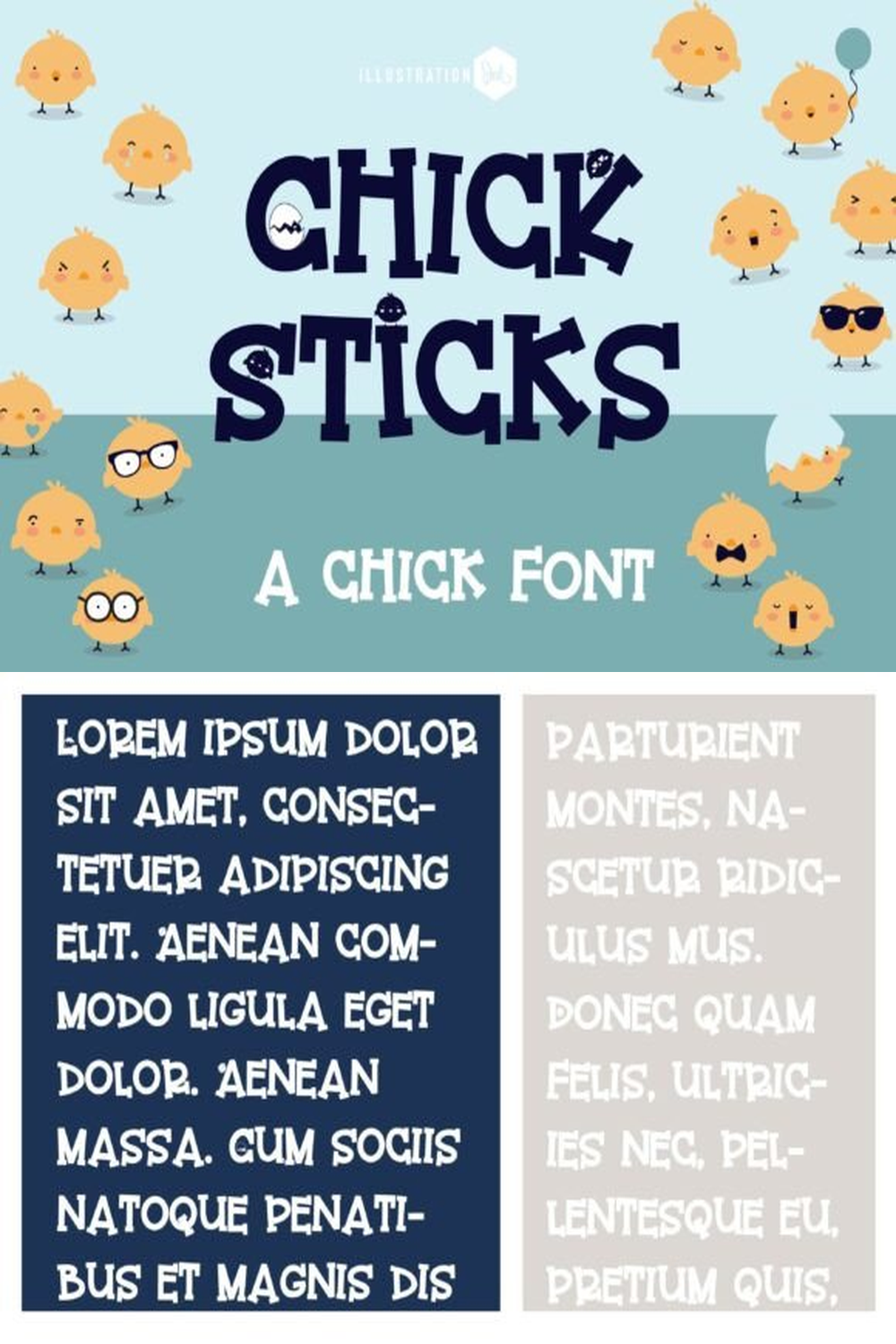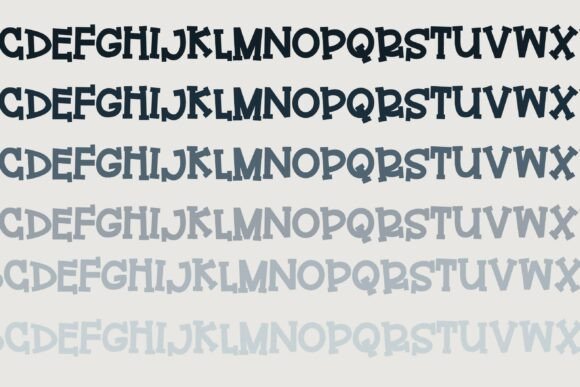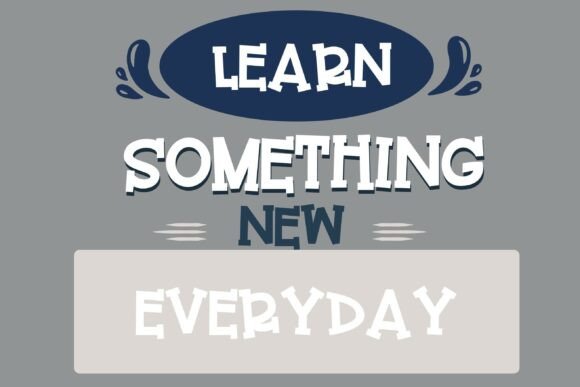
Chick Sticks Font
About the Chick Sticks Font
From logos to headlines, the Chick Sticks Font is the perfect choice for making a lasting impression. This hand-crafted font is a whimsical serif with adorable chicks on the uppercase.